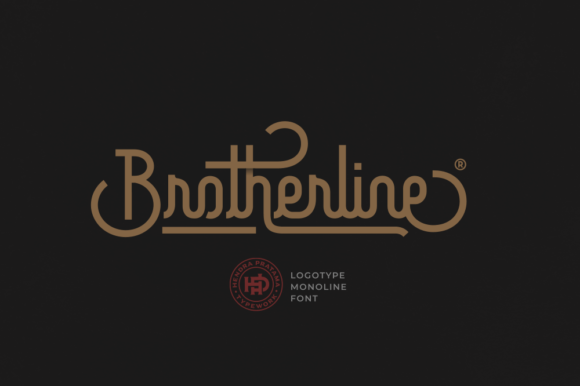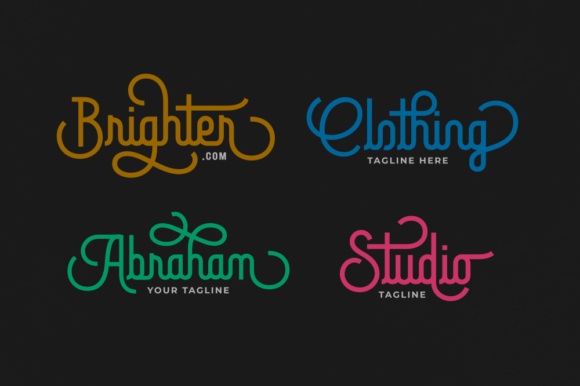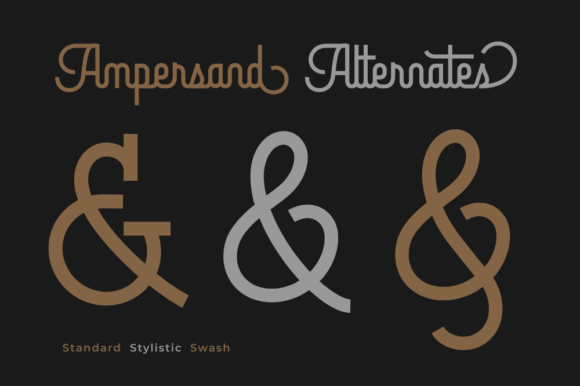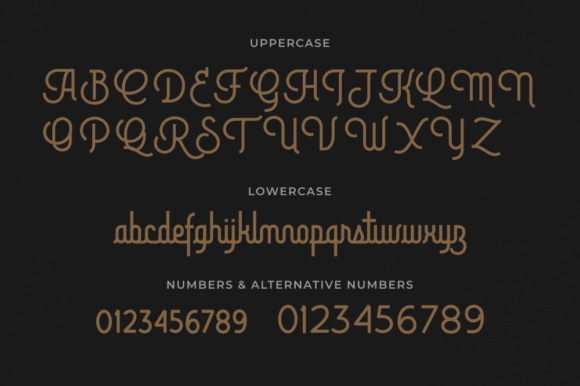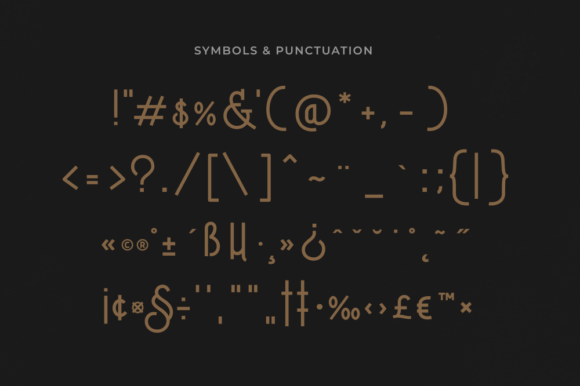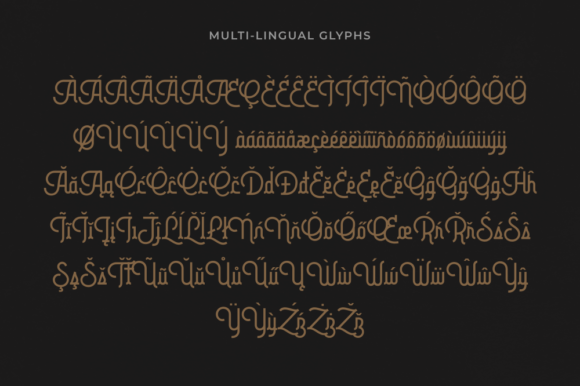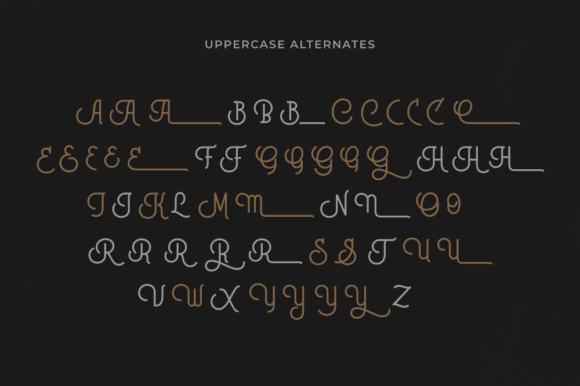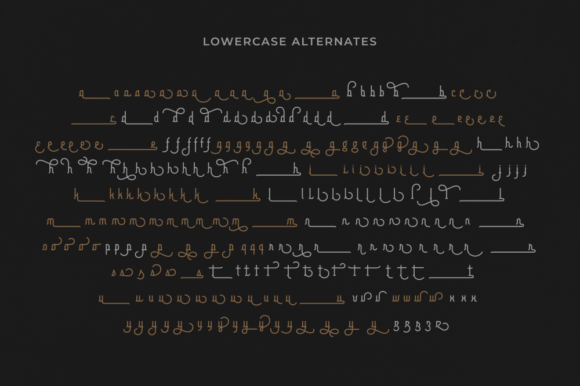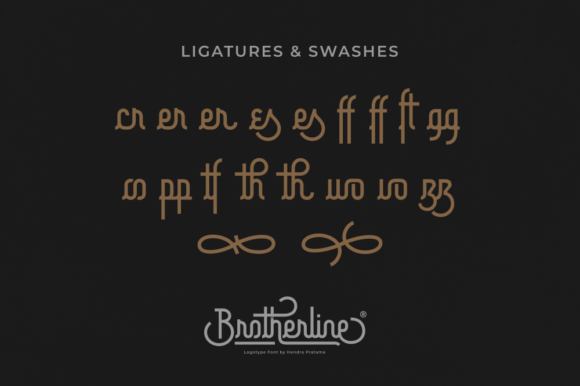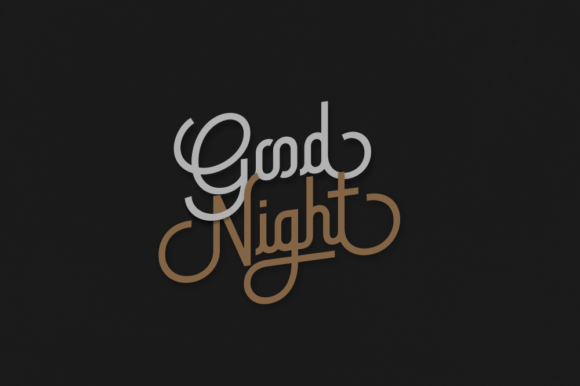
Brotherline Font
About Brotherline Font
Brotherline is an original handwritten font created from a single bold mono-line. It features an incredibly classic style, while still keeping a friendly feel. Brotherline is the perfect font for making original and outstanding designs.